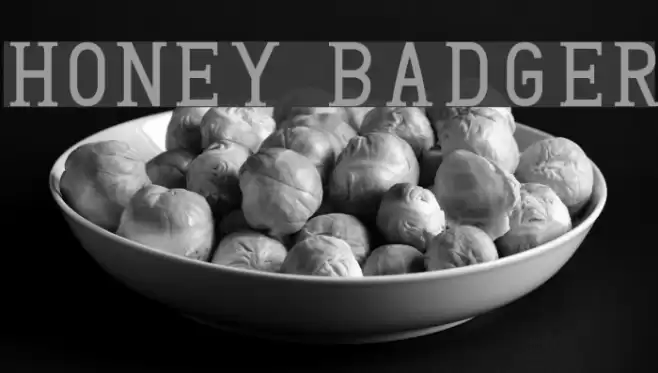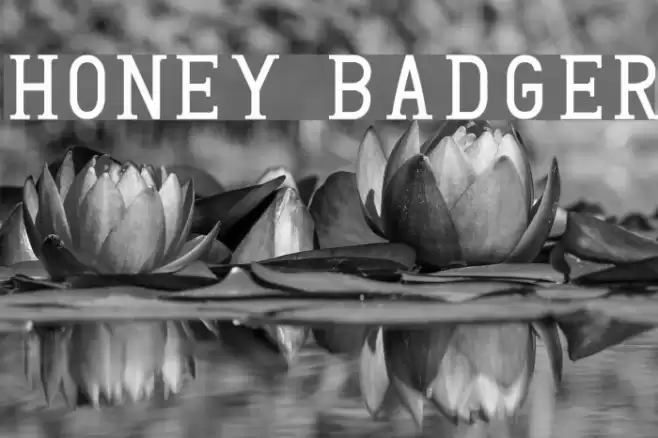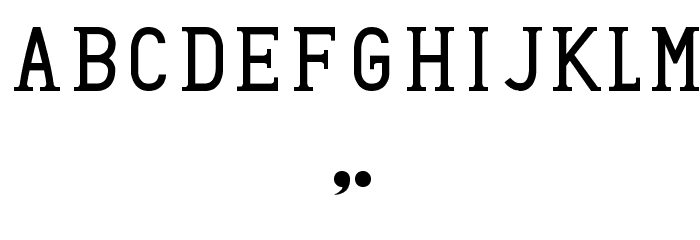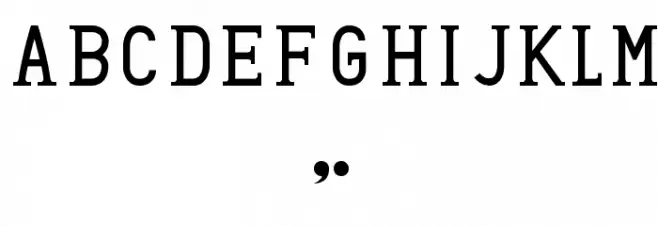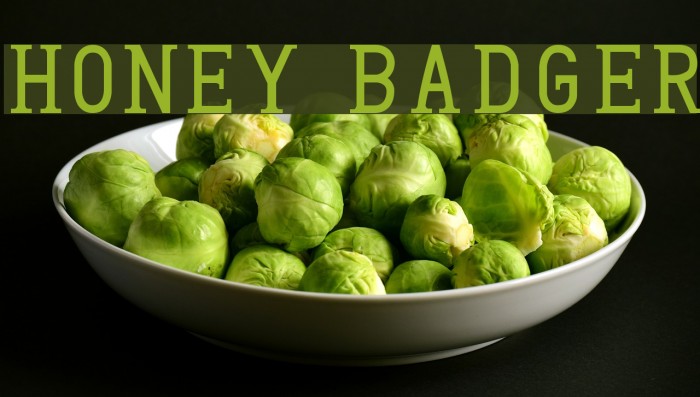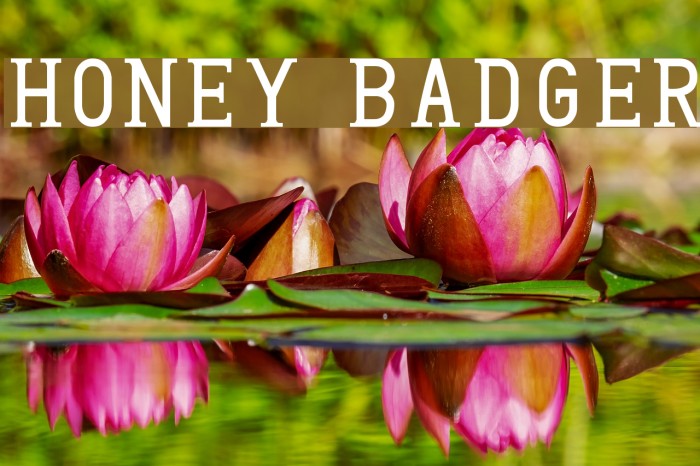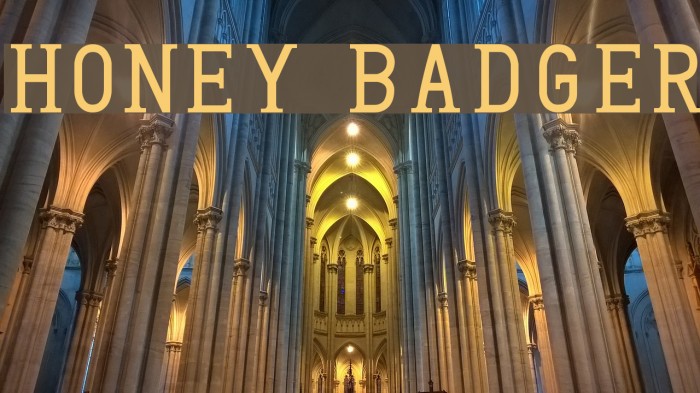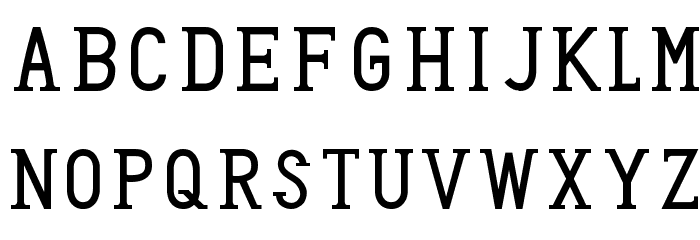
Honey Badger Font
Honey Badger Description
This font features a bold and robust slab serif style, characterized by thick, block-like serifs that give it a strong and authoritative presence. The uppercase letters are uniform and balanced, with a slight curvature that adds a touch of elegance to the otherwise sturdy design. The lowercase letters maintain the same boldness, ensuring consistency throughout the typeface. The numbers are clear and easily readable, matching the overall bold aesthetic. The special characters are designed with the same attention to detail, ensuring they integrate seamlessly with the rest of the font. This font's strong lines and bold serifs make it ideal for impactful headlines and titles.
A bold slab serif font with strong, block-like serifs and a robust presence from Uncategorized fonts.
- Proposed Projects: Ideal for branding, headlines, posters, and any design requiring a strong, authoritative typeface.
- Overall Style: Classic